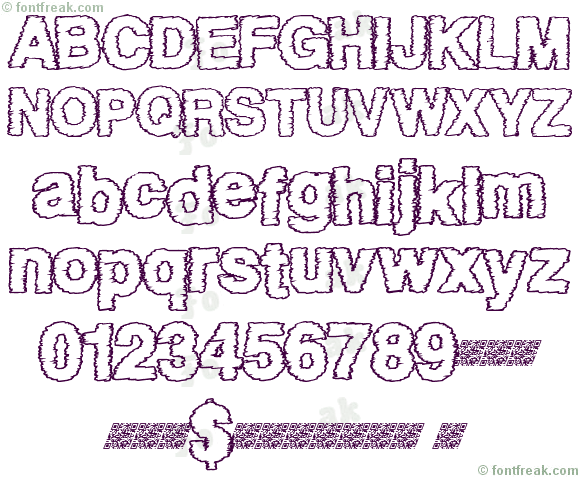
AfterWork
About AfterWork
The AfterWork font by Xerographer Fonts is a unique display typeface that captures a playful and casual essence. This font features a distinctive hand-drawn style that gives it a relaxed and informal appearance, making it perfect for various creative projects. With its irregular stroke weights and charmingly uneven edges, AfterWork embodies a light-hearted aesthetic that is both approachable and engaging.
Visually, AfterWork showcases a moderate contrast in stroke weight, which adds character without sacrificing legibility. The letters are spaced generously, allowing for easy readability, even in larger blocks of text. Additionally, the font's decorative elements, such as its whimsical curves and playful contours, contribute to its overall charm, providing a sense of fun and creativity.
This font is ideal for a variety of applications, including wedding invitations where a personal touch is desired, movie posters that aim to convey a relaxed atmosphere, and restaurant menus that seek to create an inviting vibe. It also works well for social media graphics, making it a favorite among content creators looking to engage their audience with a friendly tone. Small business owners can leverage AfterWork for branding materials that stand out while still feeling accessible.